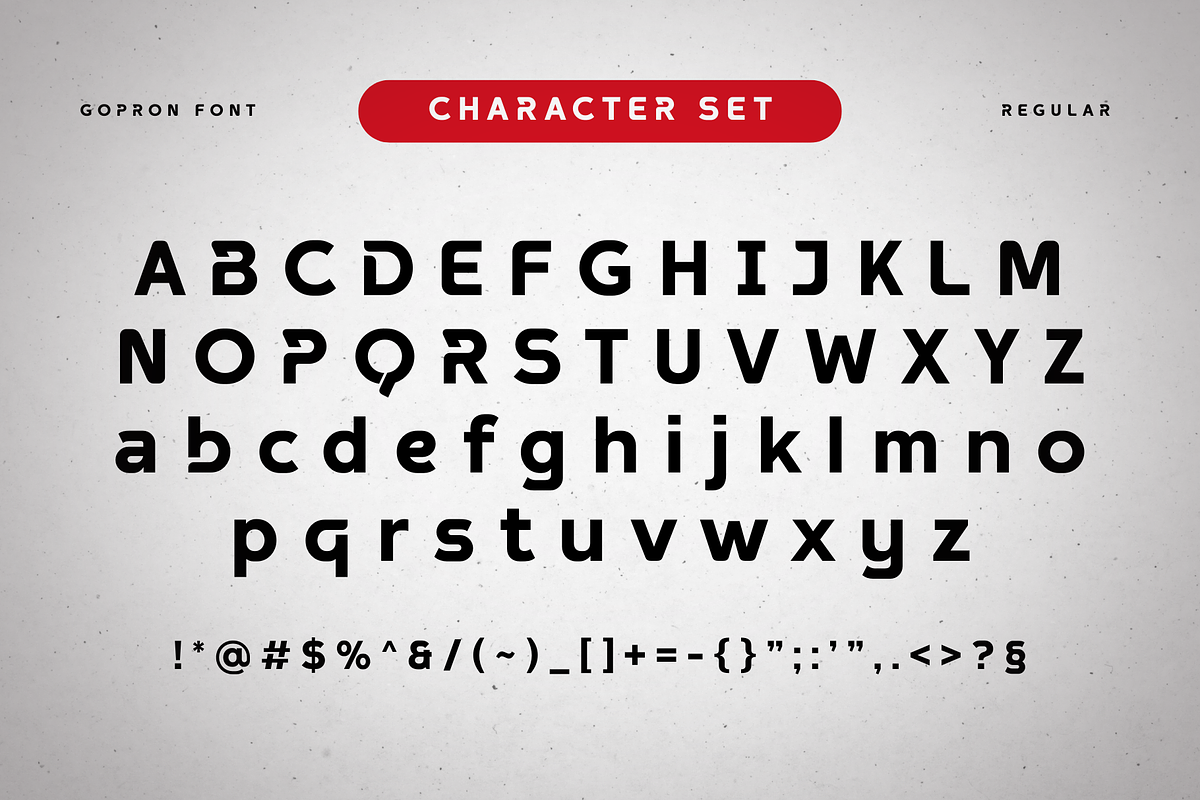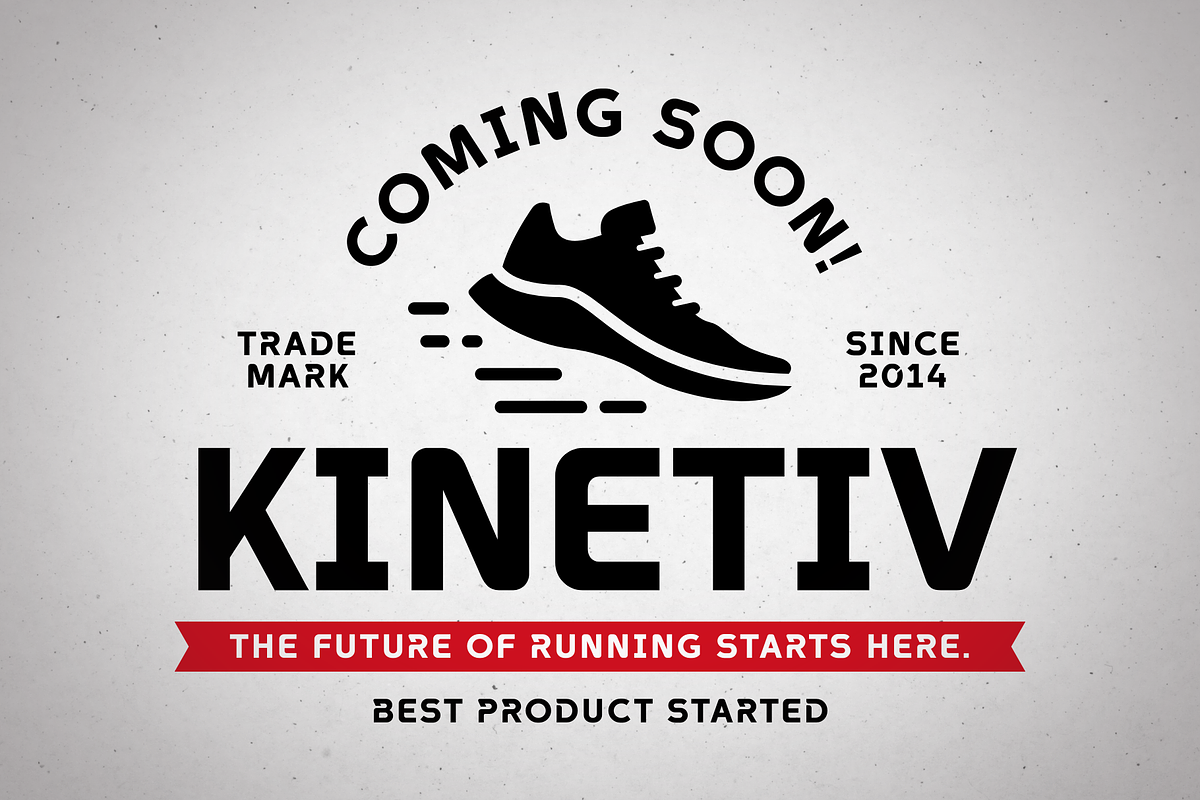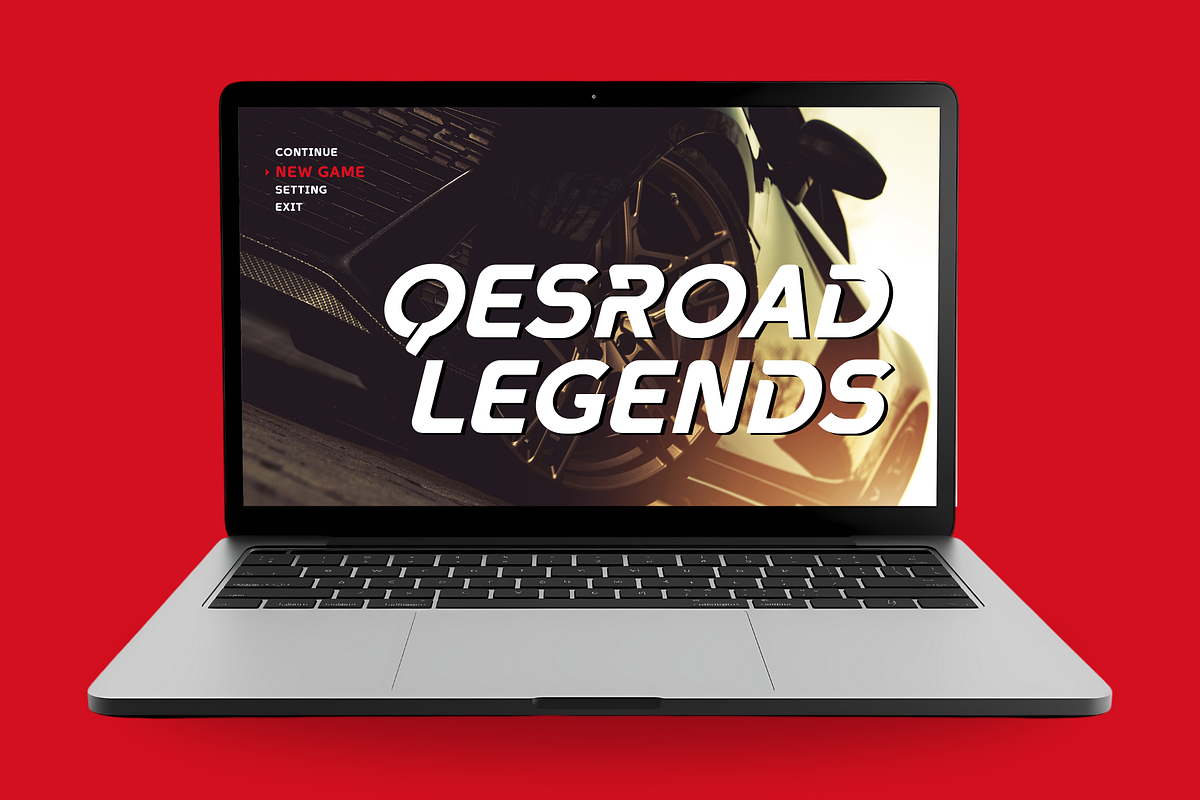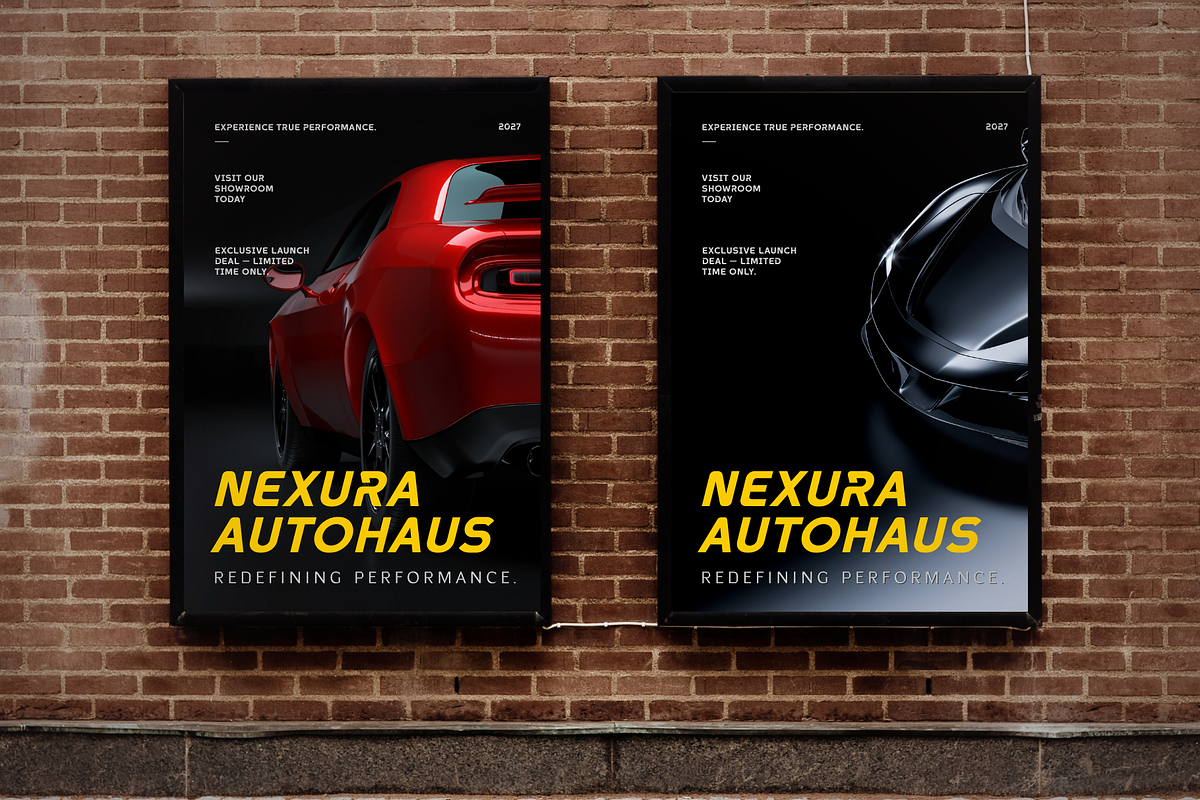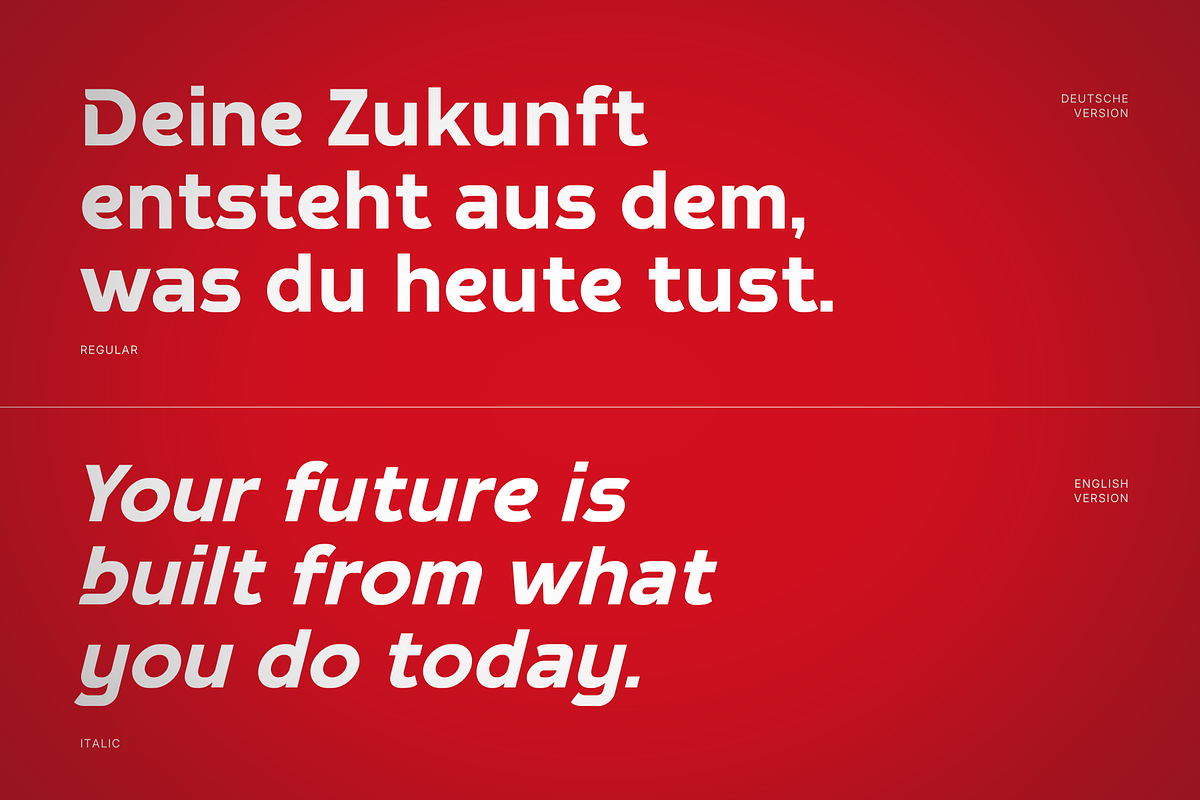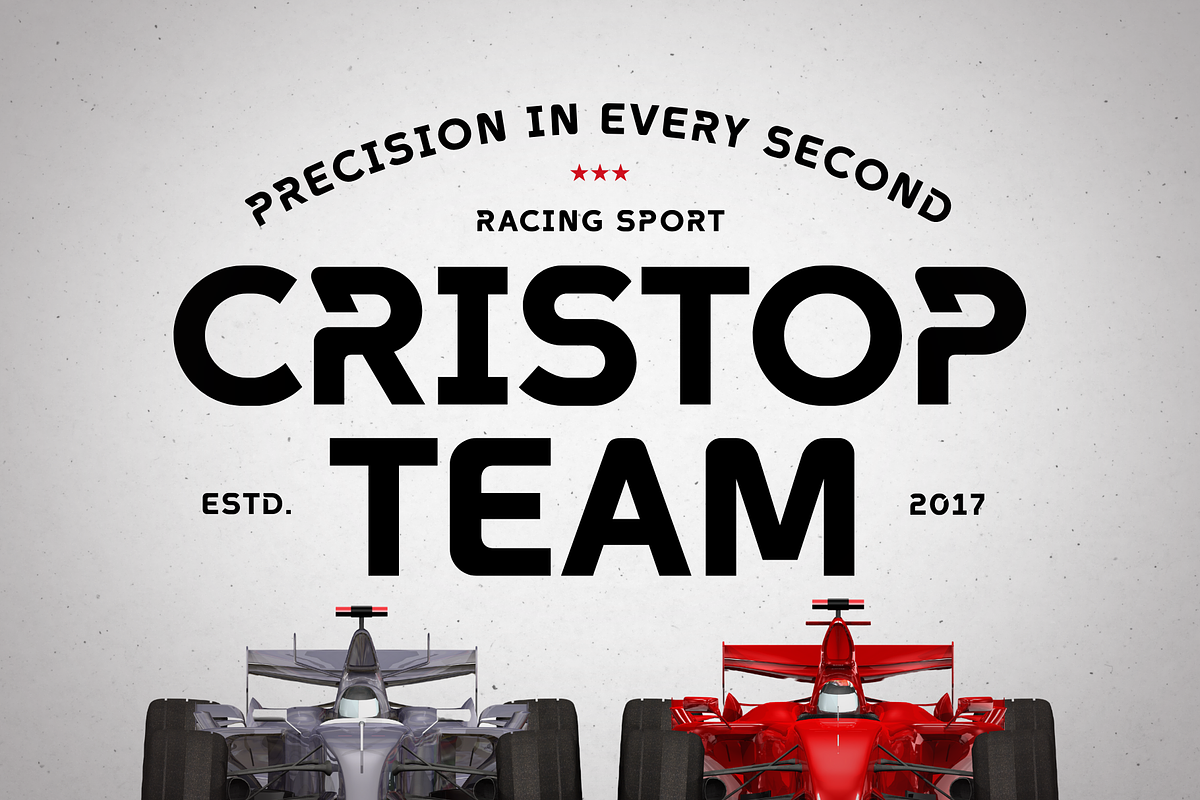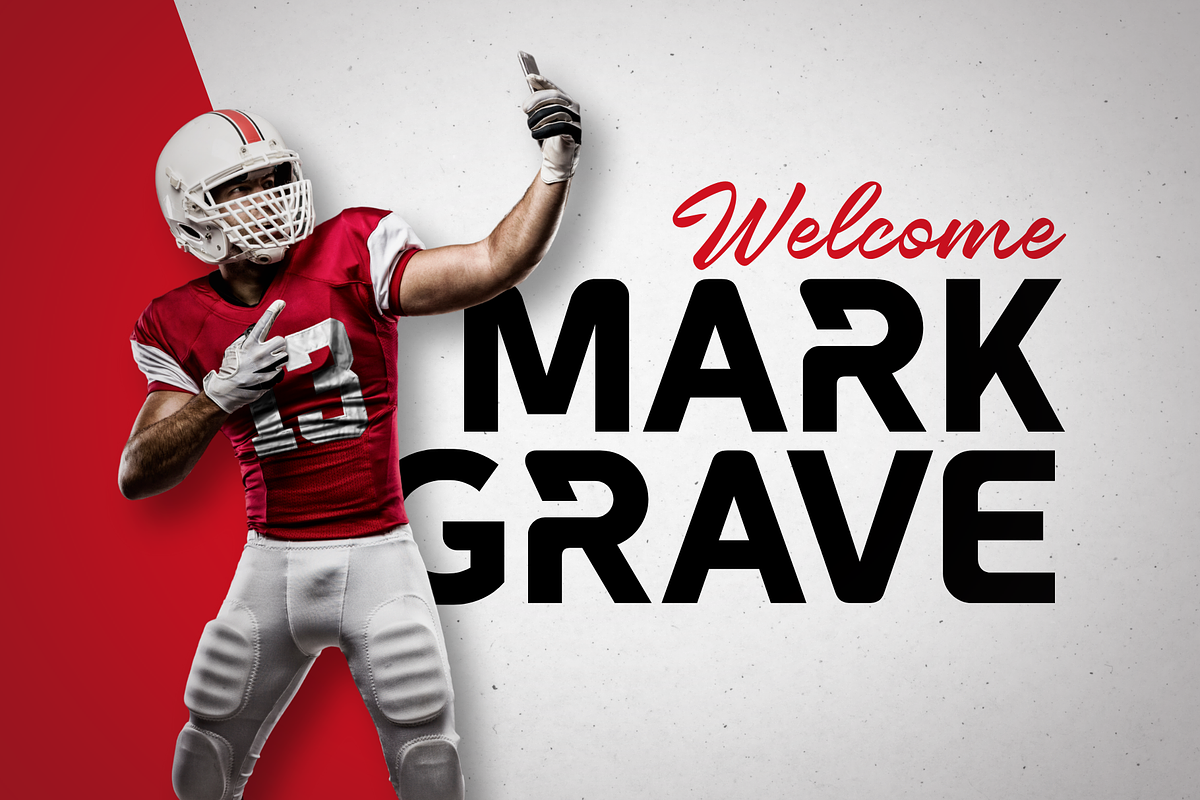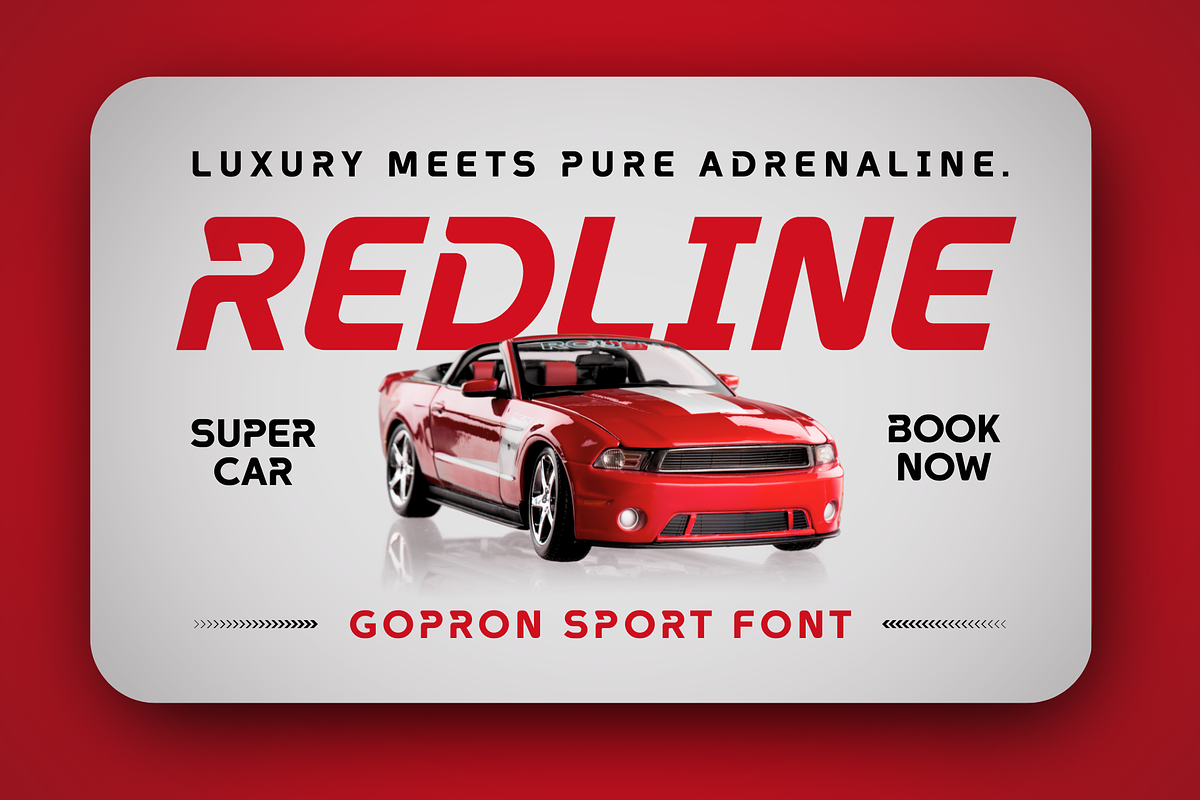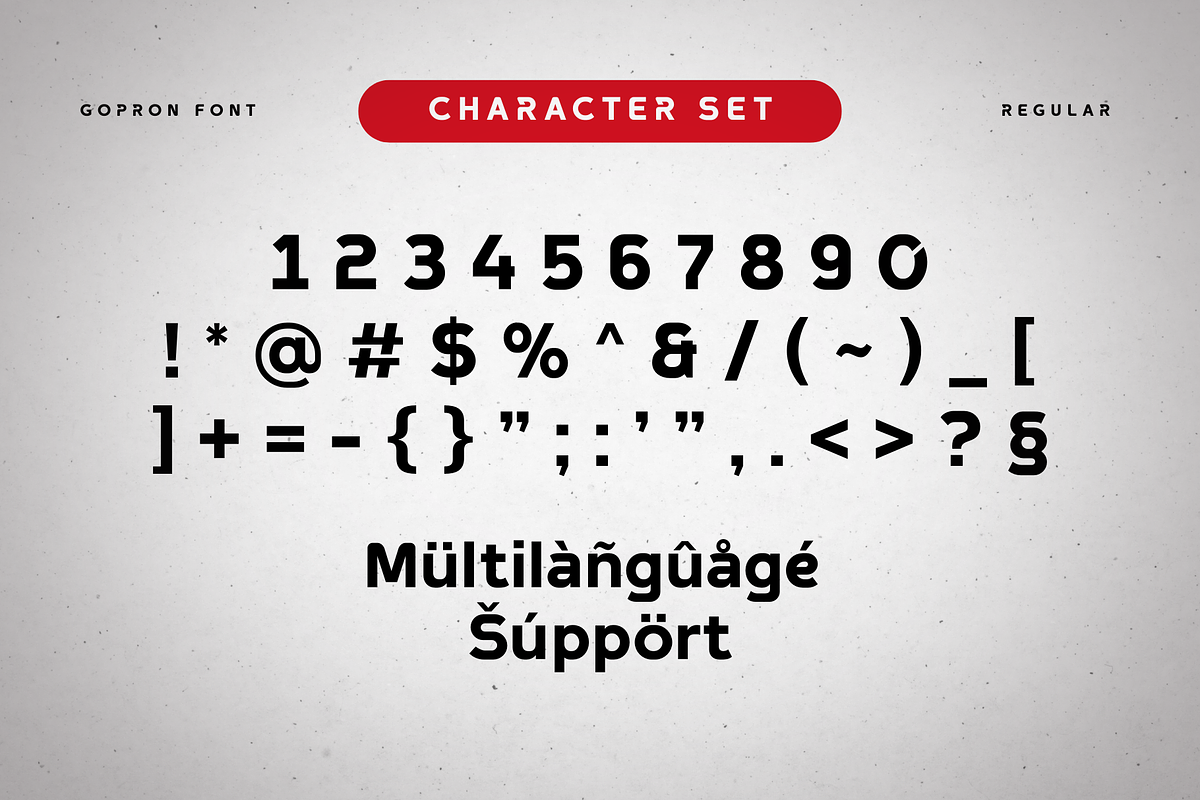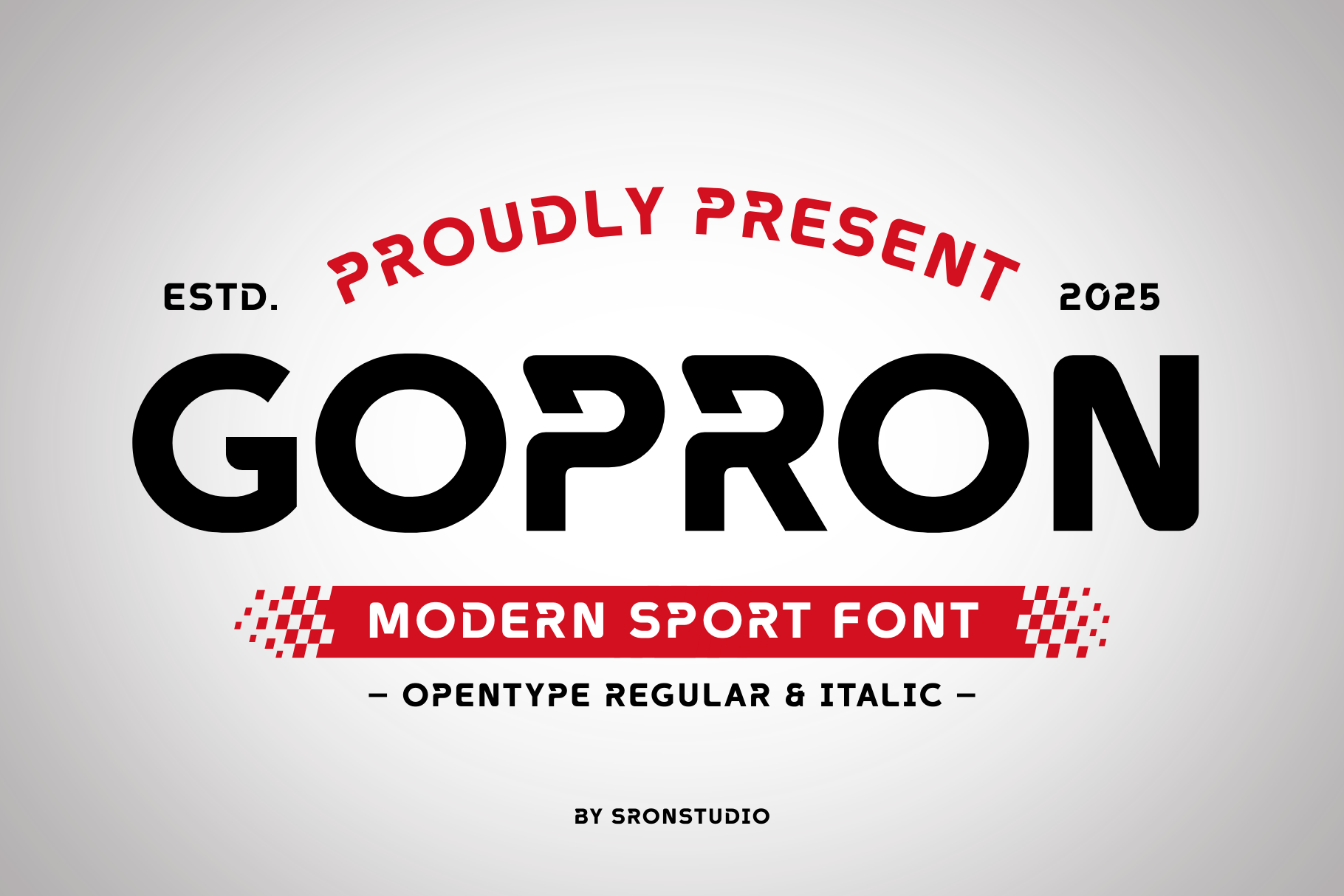
Gopron - Modern Sporty Font
Gopron is a modern sport font built to deliver speed, power, and impact. With its bold structure, sharp angles, and dynamic letterforms, this font is perfect for sports branding, team logos, jerseys, posters, esports graphics, and athletic campaigns. Gopron captures the competitive spirit and high-energy feel of modern sports design.
- Regular & Italic styles
- Numerals & punctuation